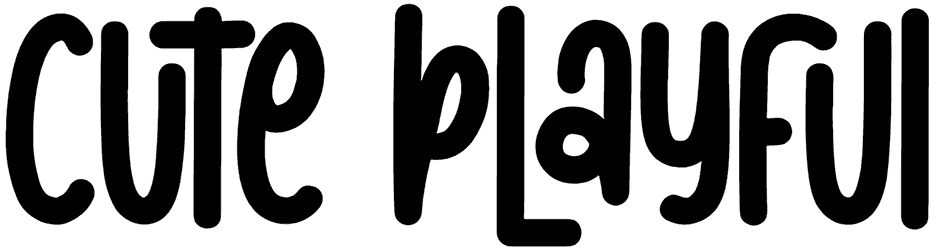
Cute Playful Font
We have just added a captivating script font, the same as the Cute Playful that comes with a wavy style, and lets you grab the attention of the audience to your content in the shortest possible time.
Aside from not supporting numbers, this cute font really deserves to be included in your branding projects, magazines, video game brochures, logos, or billboards. This artwork carries a sense of simplicity, vitality, drama, and professionalism. Bear in mind to visit our archive.